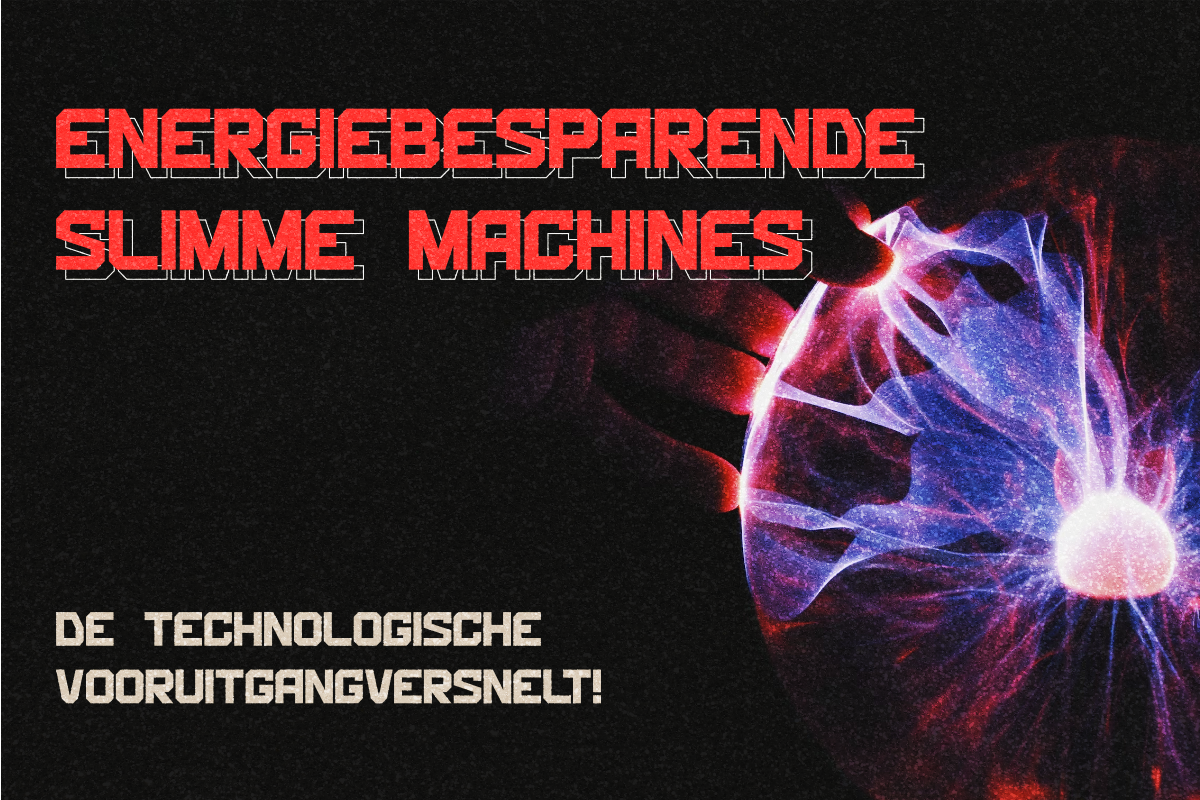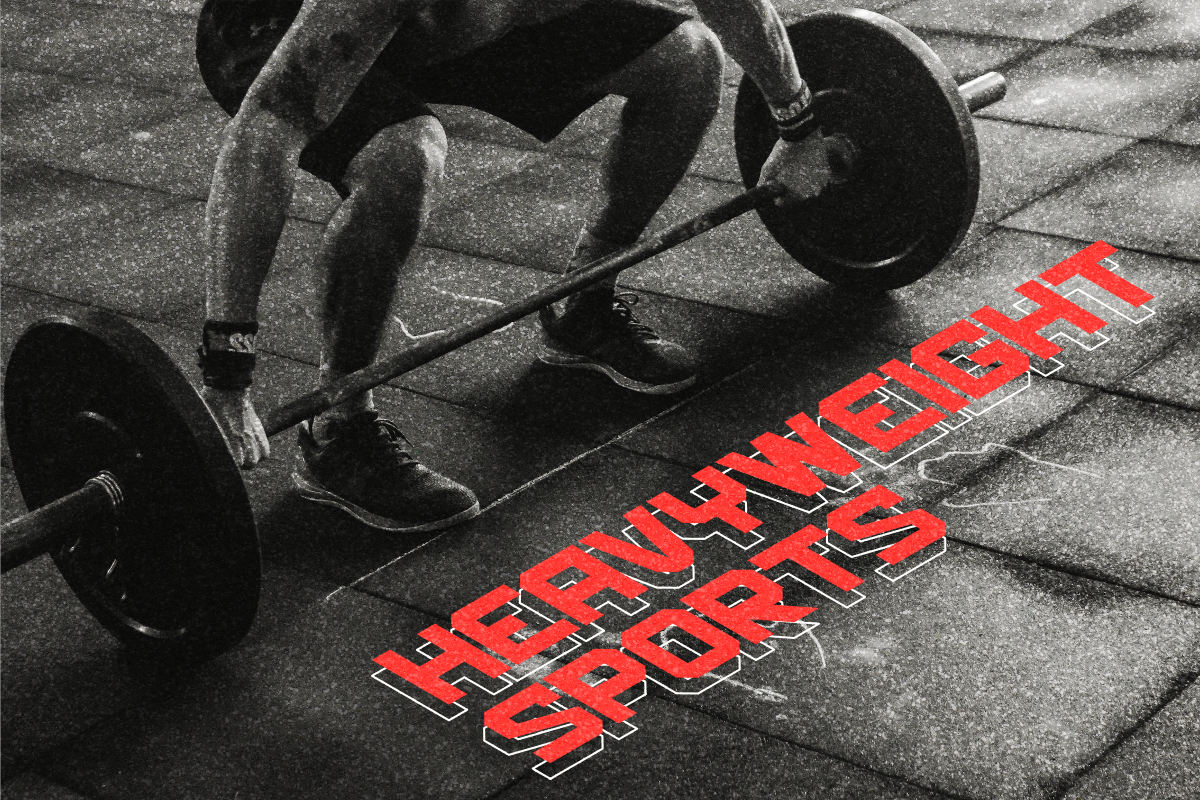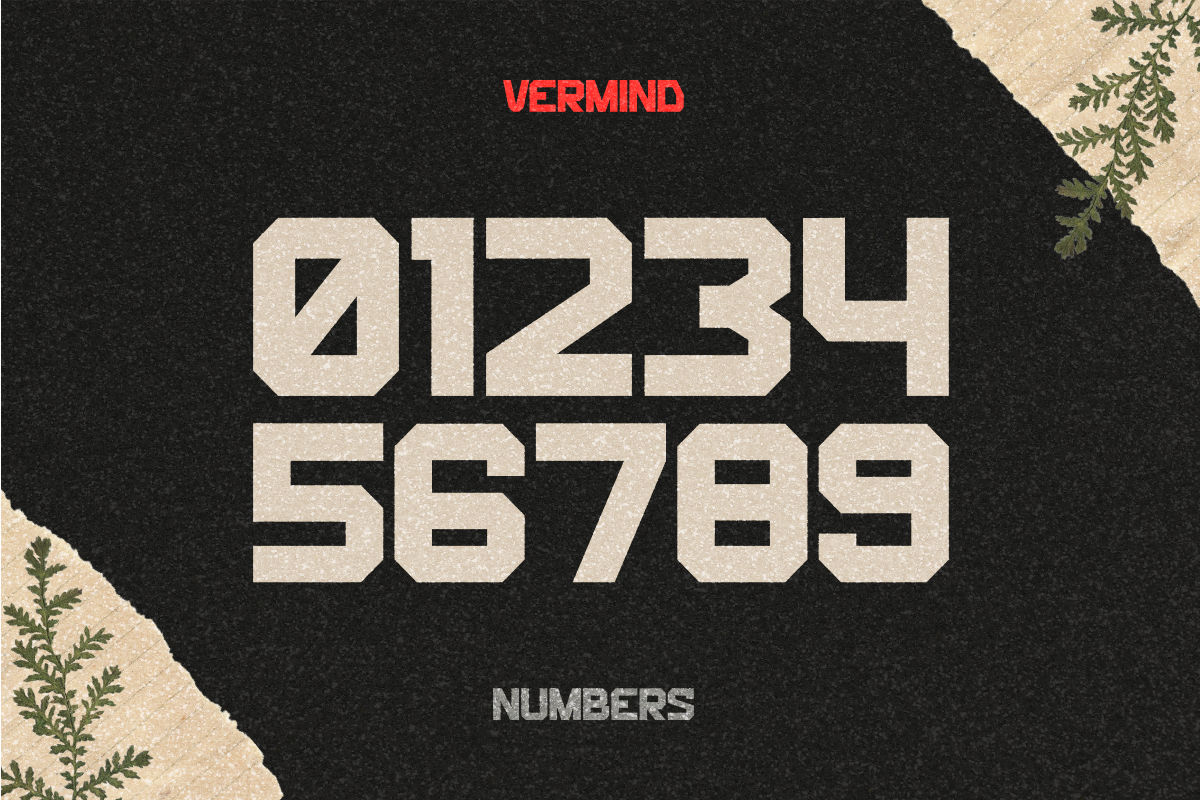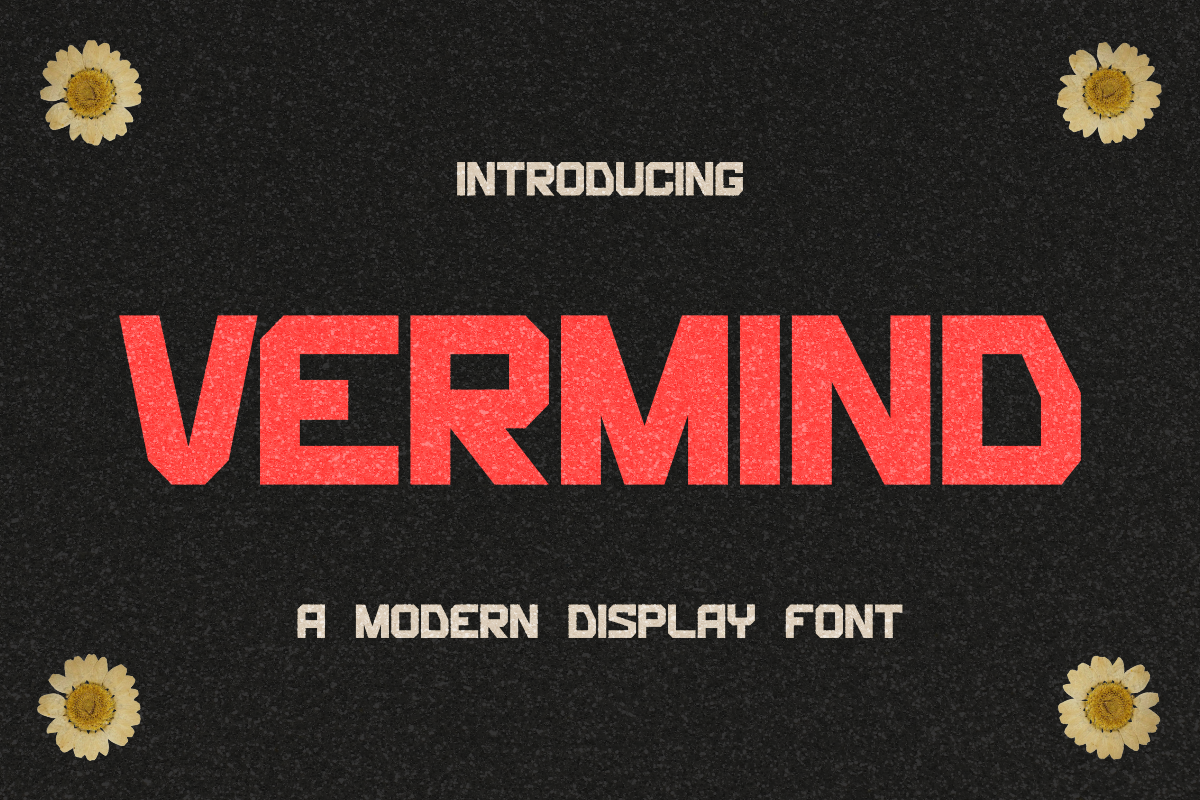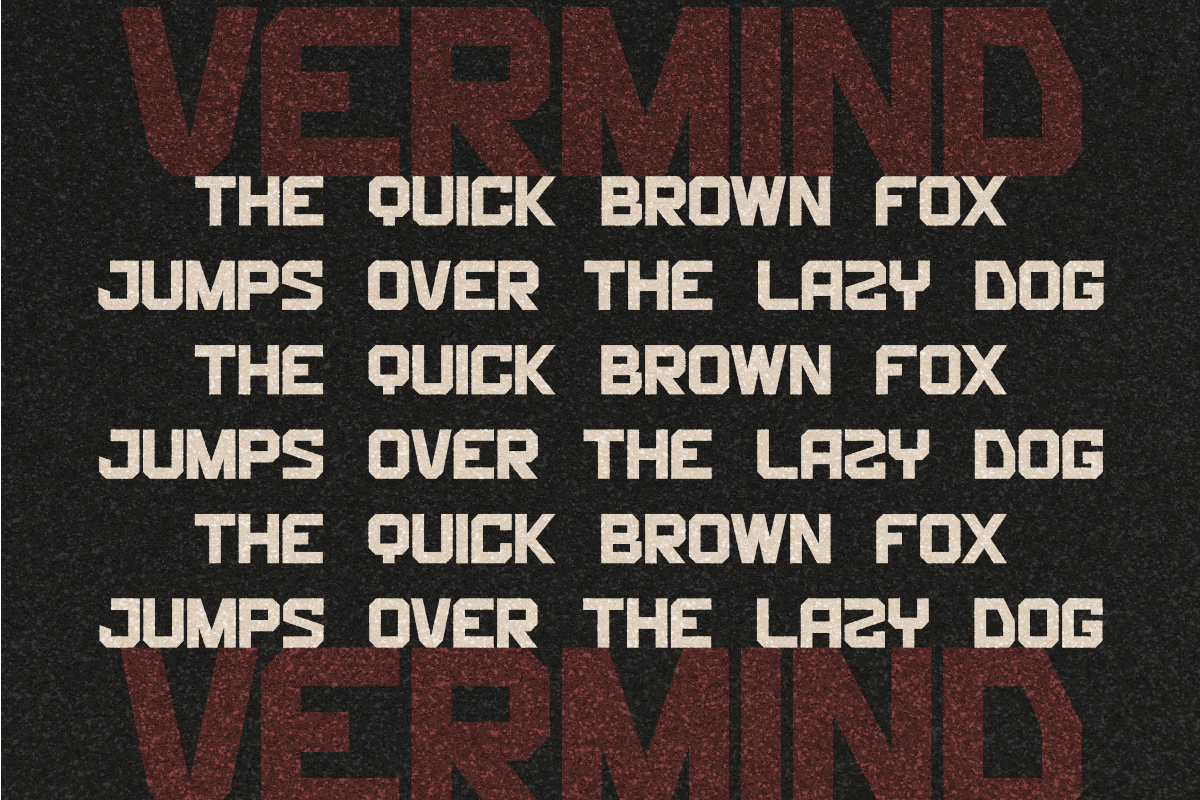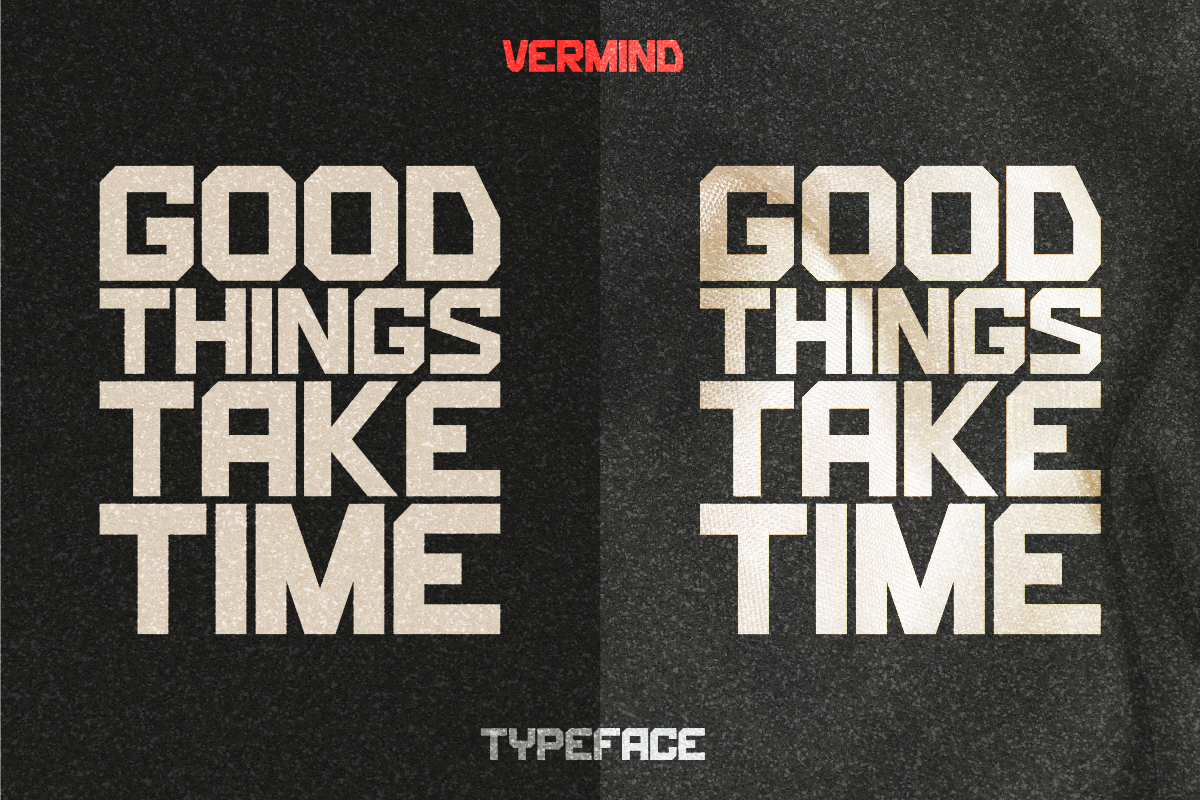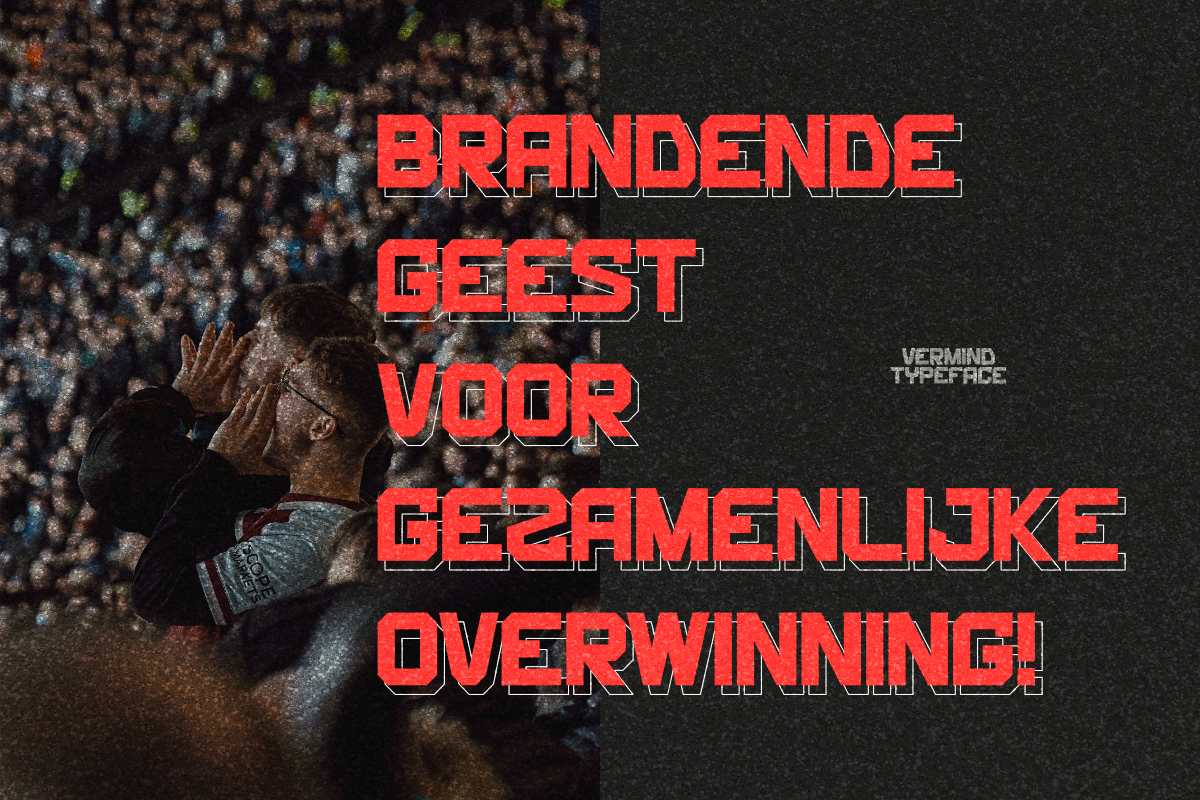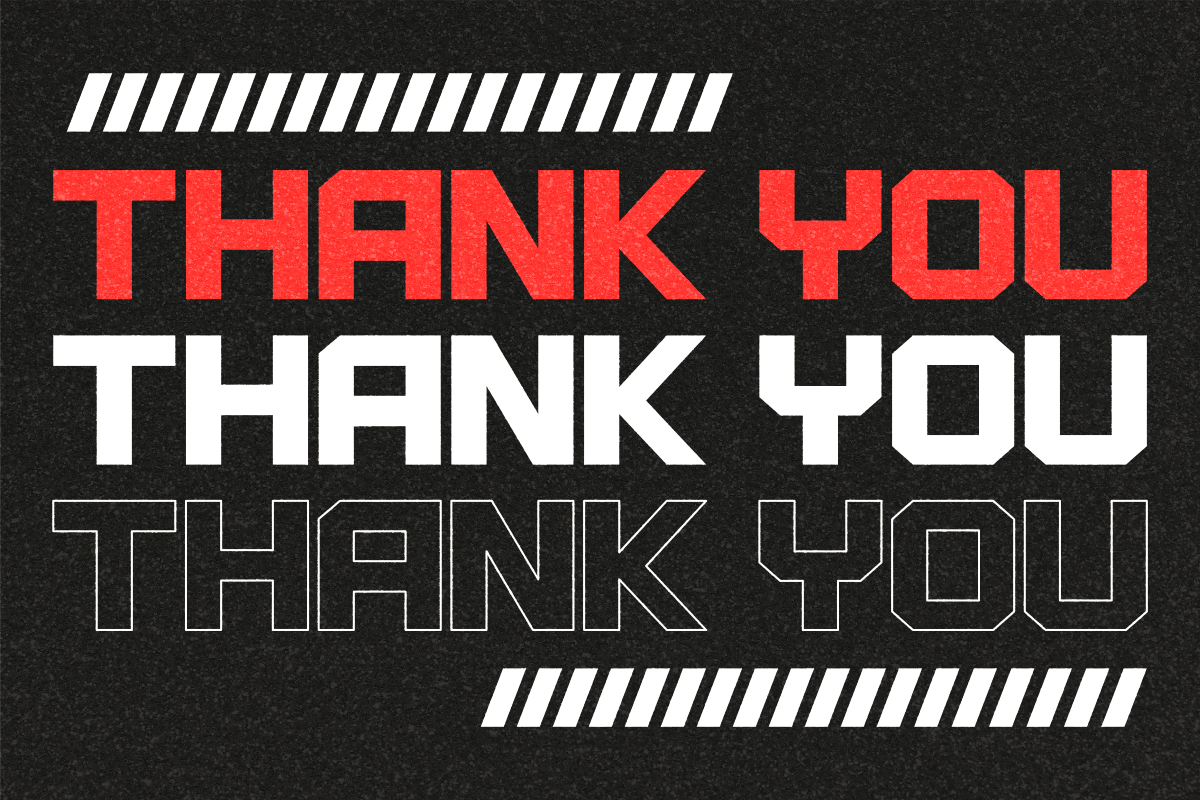
Vermind Display Modern Typeface
Vermind Display Modern Font
Vermind Display is a modern display font designed for bold, stylish, and contemporary visual projects. With its distinctive letterforms and strong visual presence, Vermind is perfect for designers looking for a modern typography font that feels clean, confident, and versatile.
Its bold display character works beautifully for branding, logos, posters, headlines, social media graphics, packaging, editorial designs, and other creative projects that need an eye-catching typographic statement.
Logo & Brand Identity
Modern Branding
Posters & Flyers
Headlines & Titles
Social Media Designs
Advertising & Marketing
Editorial Design
Fashion & Lifestyle Branding
YouTube & Social Media Graphics
Gaming & Esports Designs
Merchandise & Apparel
Creative Typography Projects
Modern display typeface
Bold and distinctive letterforms
Versatile for professional and creative designs
Suitable for headlines and large typography
Great for branding and logo design
Ideal for both digital and print projects
Vermind Display is a strong choice for designers who want to create modern, bold, stylish, and memorable typography across a wide range of creative projects.